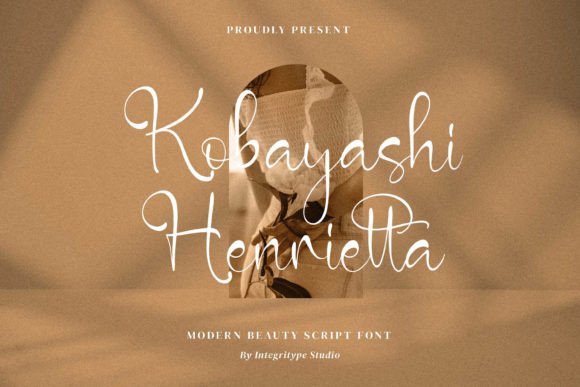
Unleash the allure of Kobayashi Henrietta, a remarkable script font that radiates elegance and sophistication. Each letter, meticulously crafted with intricate details, invites you on a visual journey of beauty and grace. Bask in the glory of its flowing curves and captivating swashes that weave a tapestry of visual delight.
Indulge in the versatility of Kobayashi Henrietta, a font that adapts seamlessly to a myriad of creative projects. Its inherent charm elevates the impact of wedding invitations, branding designs, logos, and social media posts, adding a touch of timeless artistry to your digital creations. Unleash your imagination and witness the transformative power of this font as it breathes life into your designs, evoking emotions and capturing hearts.
Experience the ease and convenience of Kobayashi Henrietta, a PUA-encoded font that grants you effortless access to its entire repertoire of glyphs and swashes. Unleash your creativity without limits, knowing that every character is at your fingertips, ready to embellish your designs with finesse and precision.
Embrace the allure of Kobayashi Henrietta, the script font that ignites passion and transforms your creative visions into reality. Its enchanting presence adds a touch of magic to every project, leaving an indelible mark on the hearts and minds of your audience. Be bold, be unique, and let the power of Kobayashi Henrietta elevate your designs to new heights of brilliance.